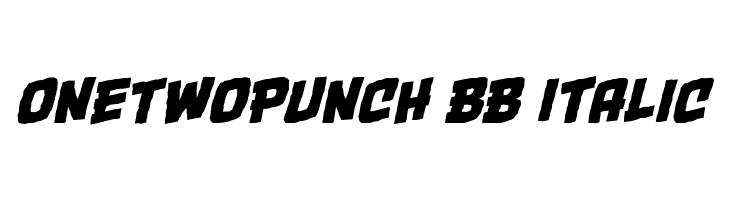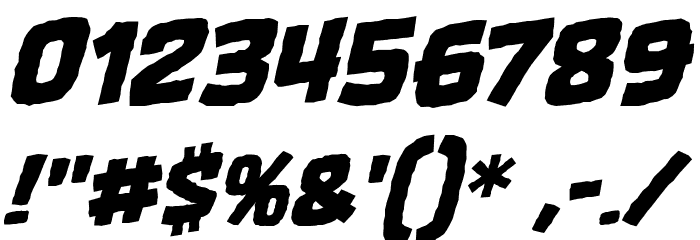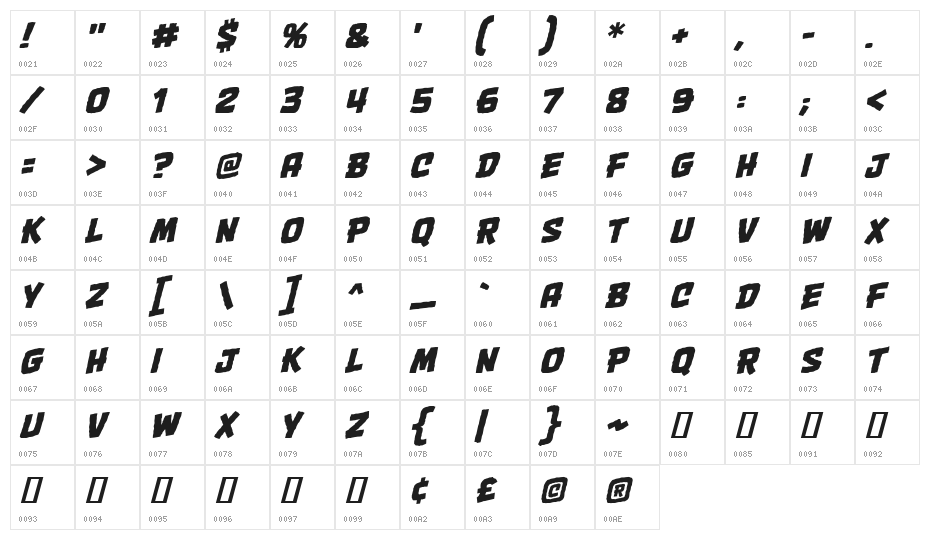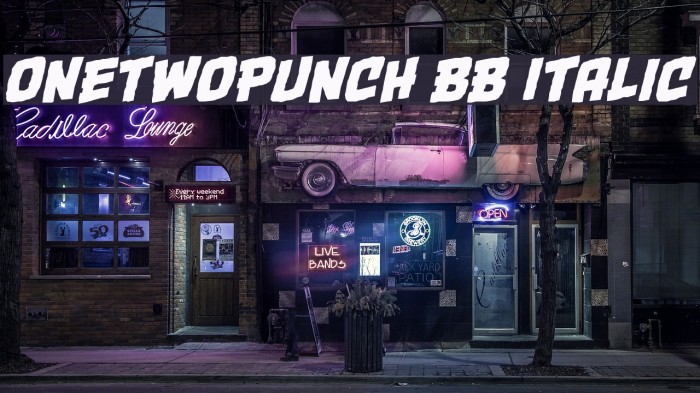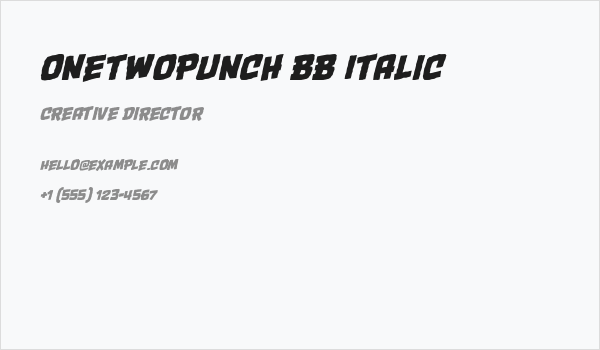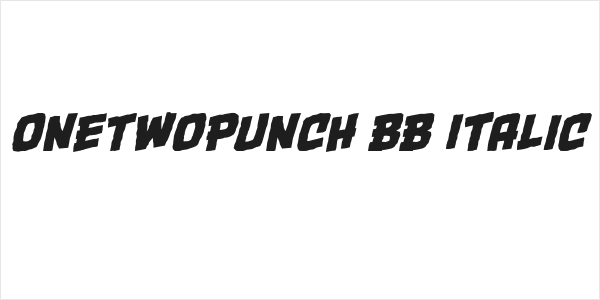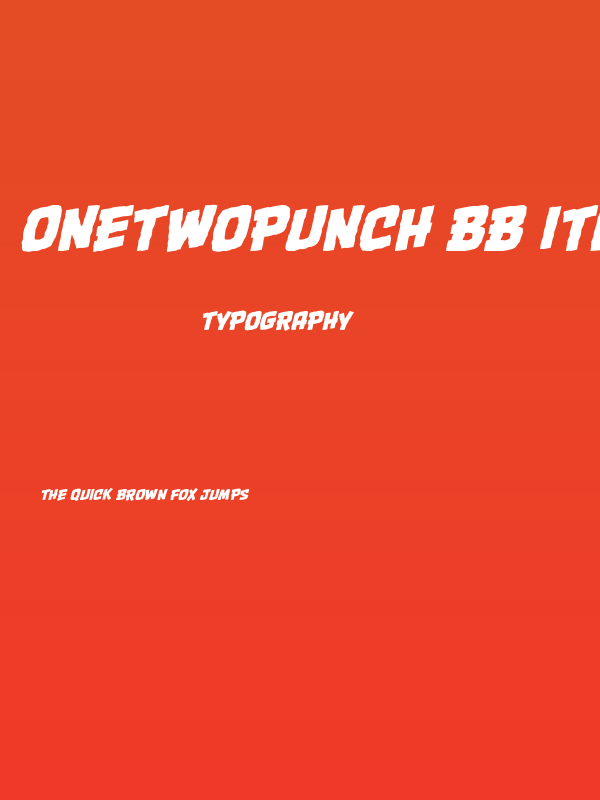
OneTwoPunch BB Italic Font
OneTwoPunch BB Italic Description
This font features a bold and dynamic style with a strong italic slant, giving it a sense of motion and energy. The characters are thick and robust, with sharp edges and a slightly distressed appearance that adds a rugged, impactful look. The uppercase and lowercase letters maintain a consistent style, with the numbers and special characters following suit. This font's aggressive and bold nature makes it ideal for attention-grabbing designs.
Overall StyleModern, Energetic
Proposed ProjectsIdeal for sports branding, action movie posters, video game titles, and dynamic advertising campaigns.